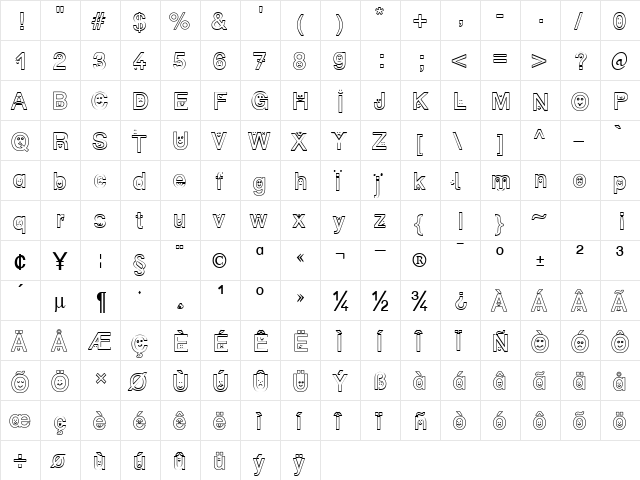
SP Face DB Normal
Design Context for SP Face DB Typeface
SP Face DB is a composed and adaptable typeface that performs quietly and consistently across a wide range of design contexts.